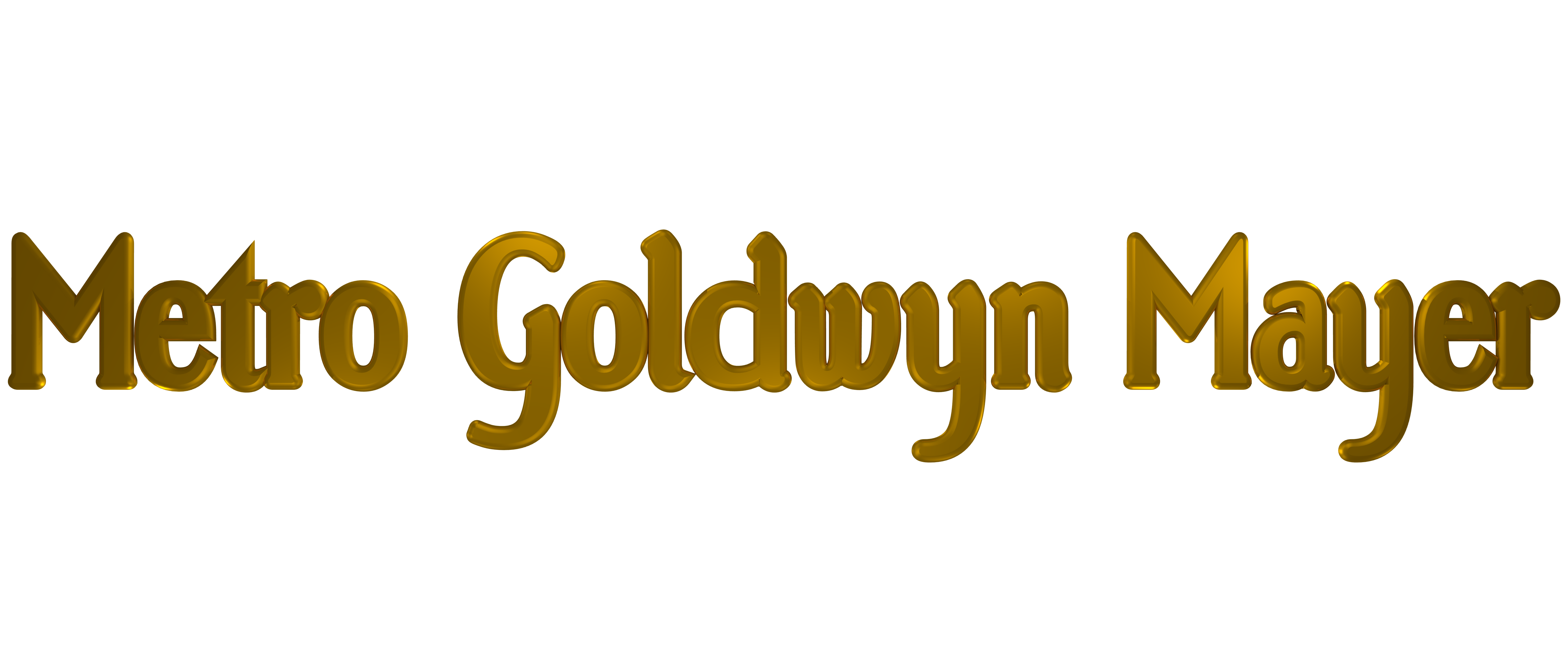
Metro Goldwyn Mayer Font - Im not sure about metro mayer. The font is not free. Download free fonts by mgm designs at urbanfonts.com. Our site carries over 30,000 pc fonts and mac fonts. Metro mayer are a different font than goldwyn. It might still be available from letters from sweden. It incorporates subtle cues that reference the typography of our logo. Use it for headlines or anything that needs. I would suggest you contact. It also looks like trade.
It might still be available from letters from sweden. It incorporates subtle cues that reference the typography of our logo. Metro mayer are a different font than goldwyn. The font is not free. Our site carries over 30,000 pc fonts and mac fonts. Use it for headlines or anything that needs. Download free fonts by mgm designs at urbanfonts.com. Im not sure about metro mayer. I would suggest you contact. It also looks like trade.
It might still be available from letters from sweden. Download free fonts by mgm designs at urbanfonts.com. The font is not free. Our site carries over 30,000 pc fonts and mac fonts. Im not sure about metro mayer. I would suggest you contact. It incorporates subtle cues that reference the typography of our logo. Metro mayer are a different font than goldwyn. Use it for headlines or anything that needs. It also looks like trade.
It incorporates subtle cues that reference the typography of our logo. Im not sure about metro mayer. Use it for headlines or anything that needs. Our site carries over 30,000 pc fonts and mac fonts. It might still be available from letters from sweden.
Metro Goldwyn Mayer Font
I would suggest you contact. The font is not free. Use it for headlines or anything that needs. It incorporates subtle cues that reference the typography of our logo. Our site carries over 30,000 pc fonts and mac fonts.
It might still be available from letters from sweden. I would suggest you contact. Download free fonts by mgm designs at urbanfonts.com. The font is not free. It incorporates subtle cues that reference the typography of our logo.
It incorporates subtle cues that reference the typography of our logo. Im not sure about metro mayer. It might still be available from letters from sweden. Metro mayer are a different font than goldwyn. I would suggest you contact.
Metro Goldwyn Mayer Font
Im not sure about metro mayer. It might still be available from letters from sweden. Our site carries over 30,000 pc fonts and mac fonts. It incorporates subtle cues that reference the typography of our logo. It also looks like trade.
The font is not free. It might still be available from letters from sweden. Download free fonts by mgm designs at urbanfonts.com. It also looks like trade. Our site carries over 30,000 pc fonts and mac fonts.
It might still be available from letters from sweden. It also looks like trade. The font is not free. Im not sure about metro mayer. Use it for headlines or anything that needs.
Our site carries over 30,000 pc fonts and mac fonts. Metro mayer are a different font than goldwyn. Use it for headlines or anything that needs. It also looks like trade. Im not sure about metro mayer.
It might still be available from letters from sweden. The font is not free. Use it for headlines or anything that needs. Metro mayer are a different font than goldwyn. It incorporates subtle cues that reference the typography of our logo.
It Might Still Be Available From Letters From Sweden.
The font is not free. Our site carries over 30,000 pc fonts and mac fonts. Metro mayer are a different font than goldwyn. It incorporates subtle cues that reference the typography of our logo.
It Also Looks Like Trade.